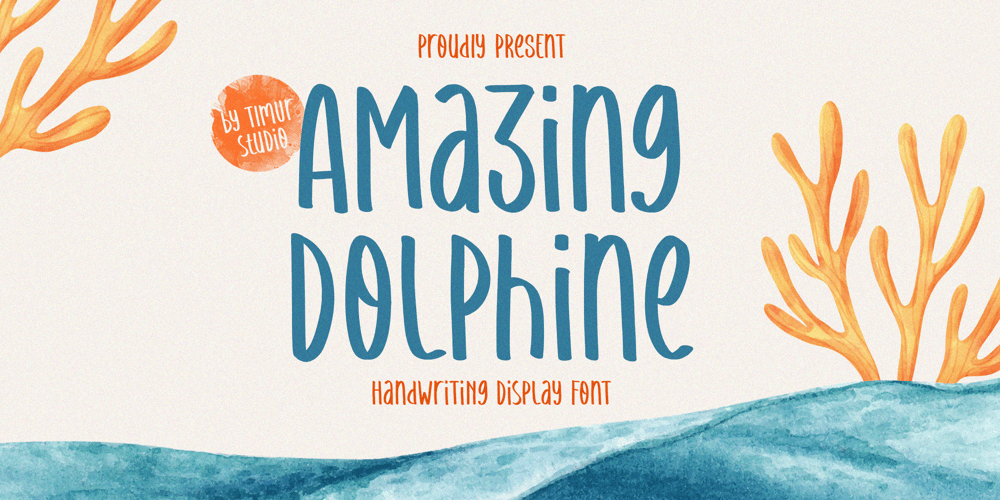
Amazing Dolphine Font Family was designed by Wara Sigit Tri Pamungkas and published by Timurtype. Amazing Dolphine contains 1 styles and family package options. Introduced by Timurtype Studio!Amazing Dolphine is a Handwriting Display FontThis font is a captivating handwriting display font that exudes charm and whimsy. With its graceful strokes and playful curves, each letter dances across the page, inviting readers into a world of creativity and imagination. Perfect for adding a touch to invitations, posters, or branding materials, this font blends elegance with a hint of artistic flair, making every word a visual delight. Whether used in digital or print media, “Amazing Dolphine” ensures your message stands out with its unique and endearing style.Amazing Dolphine also supports multilingualismEnhance your designs with our original fonts, feel free to comment or provide feedback, Enjoy the fonts 😊Thank You